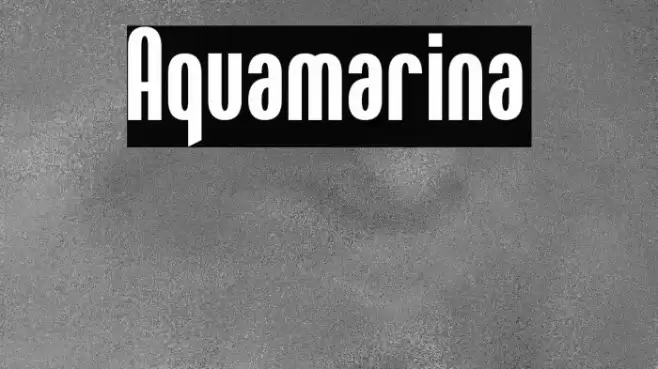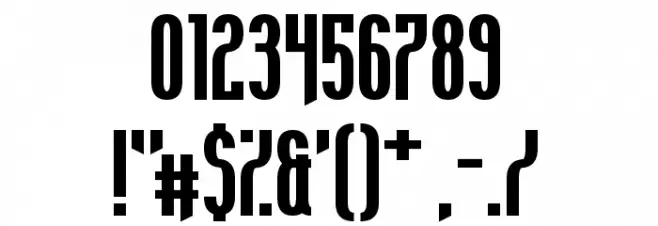
Aquamarina Font
Aquamarina Description
This font features a bold and condensed style with a modern flair. The characters are tall and narrow, giving a strong vertical emphasis. The uppercase letters have a uniform height, while the lowercase letters maintain a consistent baseline, enhancing readability. The numbers are similarly styled, ensuring a cohesive look across all characters. The special characters are distinct and well-integrated, making them suitable for various design needs. The overall appearance is sleek and contemporary, ideal for making a statement.
A bold, condensed font with a modern and sleek design from Uncategorized fonts.
- Proposed Projects: Ideal for headlines, posters, branding, and any project requiring a strong visual impact.
- Character Spacing: Tight